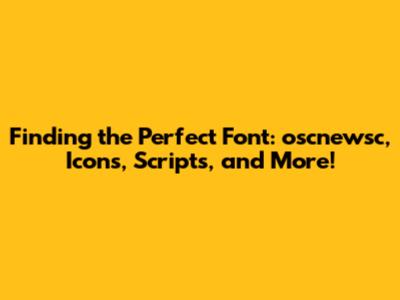
Hey font fanatics! Ever found yourself on a quest, searching for that perfect typeface to make your project pop? Maybe you're after something elegant, like a classic script font, or perhaps you need a whole library of cool icons. If you've been down this rabbit hole, you've probably stumbled upon some awesome resources. Let's dive into the world of fonts, exploring some key players like oscnewsc, iconic designs, and the ever-popular DaFont.
Unveiling oscnewsc: Your Gateway to Unique Typography
Alright, let's talk about oscnewsc! Now, the term “oscnewsc” might refer to different things, depending on the context. It could be a typo, an abbreviation or a specific project. But it's a jumping-off point for exploring some fantastic typography. The first step is figuring out what it really means in the context you're interested in. Once you've clarified the meaning behind the name, you can start digging into how it's linked to the font world. Is it a style of font? A creator's name? A project that utilizes special fonts? Understanding these basics will help you find the fonts you need.
Finding great fonts takes patience, right? I mean, who wants to end up with something generic when you can get something really special? Imagine your website, your brand, or even just a personal project looking amazing because of the perfect font choice. That's the power we're talking about! So, when you're searching, remember to keep your eye out for fonts that are not only visually appealing but also match the vibe you're aiming for. Remember the project’s main goal when deciding. This could be anything from formal and professional to playful and quirky. Do your research, try out different options, and see which ones bring your vision to life.
And how do you actually find fonts? Well, that's where the fun begins. The internet is full of places where you can discover different fonts, whether that is something similar to oscnewsc or some other thing. There are websites that allow you to preview the fonts before downloading them, so you can test them out on your own work. There are also professional foundries that sell fonts, as well as community-based platforms where font designers share their creations. One important tip: Always check the licensing agreements. You don't want to accidentally violate copyright rules. Depending on how you want to use the font, you might need a commercial license. So, take a moment to understand the terms before you start using a particular font.
Once you begin to understand the fonts that you're using, and where to find more of them, you will have the knowledge you need to locate the right one. Keep in mind that great fonts are often combined to create something even more amazing. Think about headings versus body text, or how the font works together with different sizes and weights. When in doubt, seek inspiration from other designers and websites that you admire. Take a look at the fonts they are using and how they use them. You can also start experimenting by combining different font styles on your own. Who knows, you might discover a combination of your own that looks fantastic! Finding and using the right fonts can definitely transform your design projects. It's a key element that can elevate your designs.
The Power of Icons: Visual Storytelling at Your Fingertips
Moving on to icons – these little visual gems are incredibly important. Icons are small symbols that represent actions, concepts, or objects. They are a universal language that communicates instantly. Whether you’re designing a website, a mobile app, or even a presentation, icons can make your content more engaging and easy to understand. They help guide users, highlight important information, and add a touch of personality to your work.
But where do you find these amazing icons? Well, there are tons of resources available, ranging from free icon packs to premium collections. One of the best strategies is to start with a project’s needs. What specific actions or concepts are you trying to represent? Based on that, you can begin to research icon sets. This helps a lot when you're trying to figure out what you are looking for. There are numerous free icon websites, where you can download a wide variety of icons for personal and commercial use. If you want something more unique or specialized, you can explore premium options that offer custom designs. Be sure to check the licensing rules. Most icon packs come with different license types, and it’s important to know which is most appropriate for your project. A lot of icons come under the Creative Commons license, which means they can be used for free as long as you give credit to the creator.
Strong visual storytelling is crucial. Imagine trying to explain something without visuals – it’s way harder, right? Icons are one of the best ways to enhance your story. They save space, communicate complex ideas in an instant, and can greatly improve the user experience. You'll want to choose icons that are consistent in style. Using different icon styles can make your design look a little messy. It's better to stick with one or two icon sets to maintain a cohesive look. Color is also very important. Make sure that the colors of the icons you choose match the overall aesthetic of your design. You want the icons to blend seamlessly with the rest of your content.
If you're creating a website or application, think about the user experience. Icons make it easier for people to navigate and understand your content. Use icons to highlight key actions, provide visual cues, and break up large blocks of text. Make sure your icons are easy to understand. Keep them clear, simple, and intuitive. Icons must be easily recognizable. If they are too abstract or complicated, they might confuse users instead of guiding them. Testing is also very important, so you can make sure everything looks good. Gather feedback to improve your work. Ask other people for their feedback on your designs. You can see if they understand the icons and if they find them helpful.
Diving into Script Fonts: The Art of Elegance and Personality
Script fonts are all about elegance. They capture the spirit of handwriting, making your project unique and stylish. Script fonts can add a personal touch to your designs, making them feel more natural and human. Whether it's the flourish of a signature or the grace of flowing cursive, script fonts can add a certain charm that is impossible to replicate with other font styles. The variety is truly amazing, ranging from delicate, thin scripts to bolder, more robust ones. This variety lets you choose the perfect script font to match the mood you're aiming for.